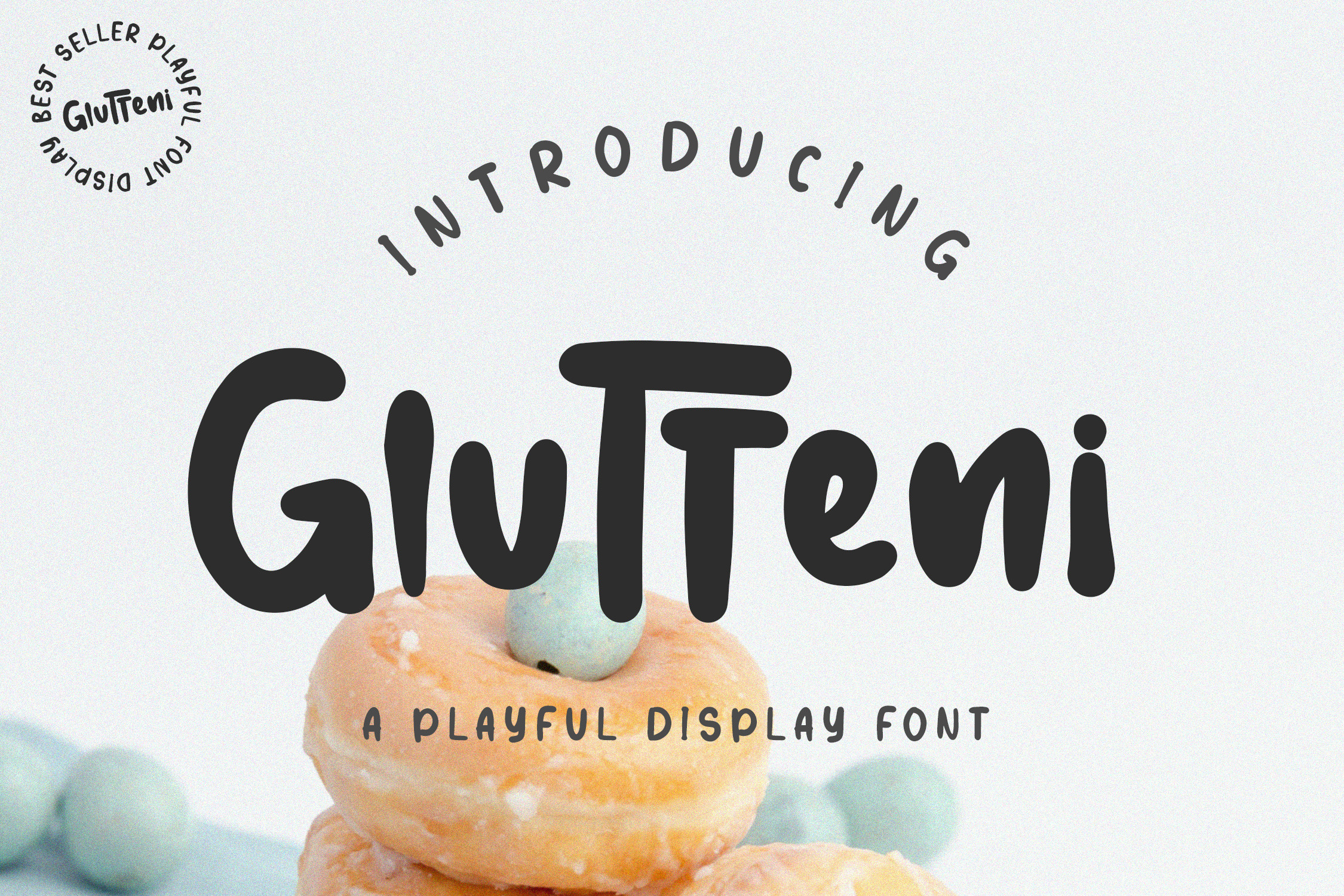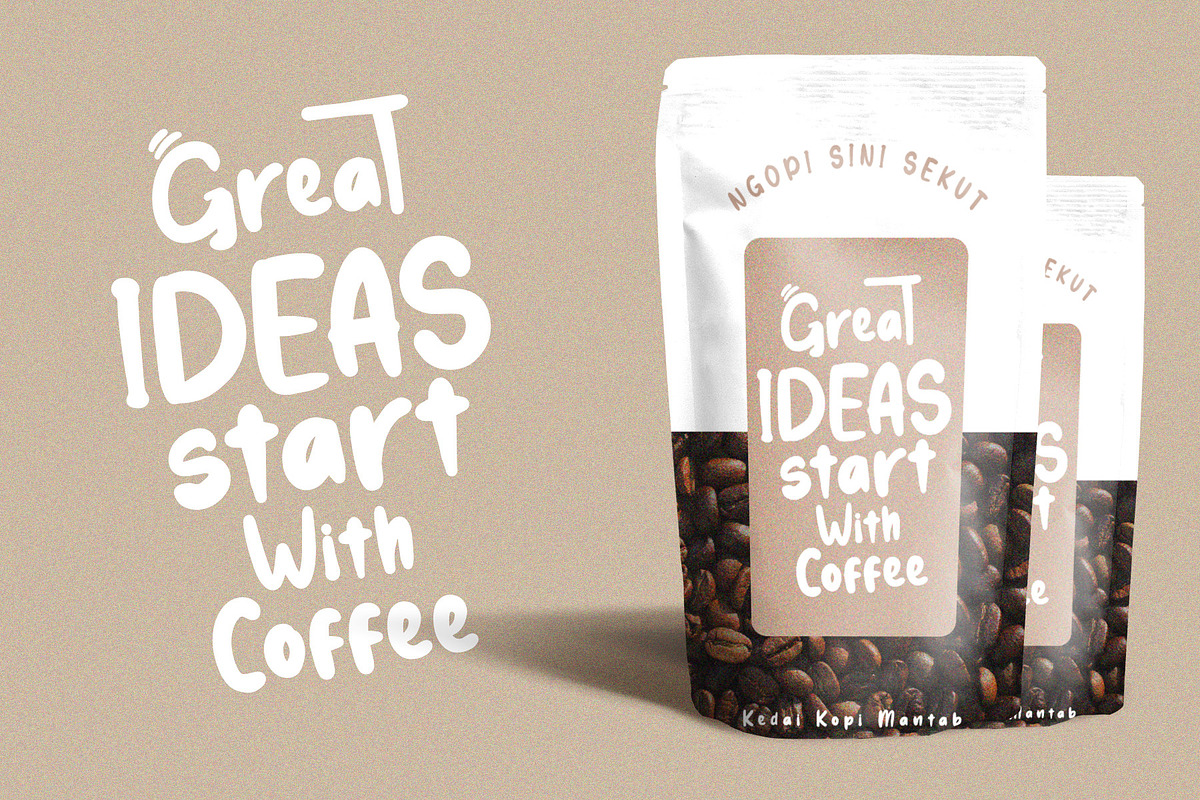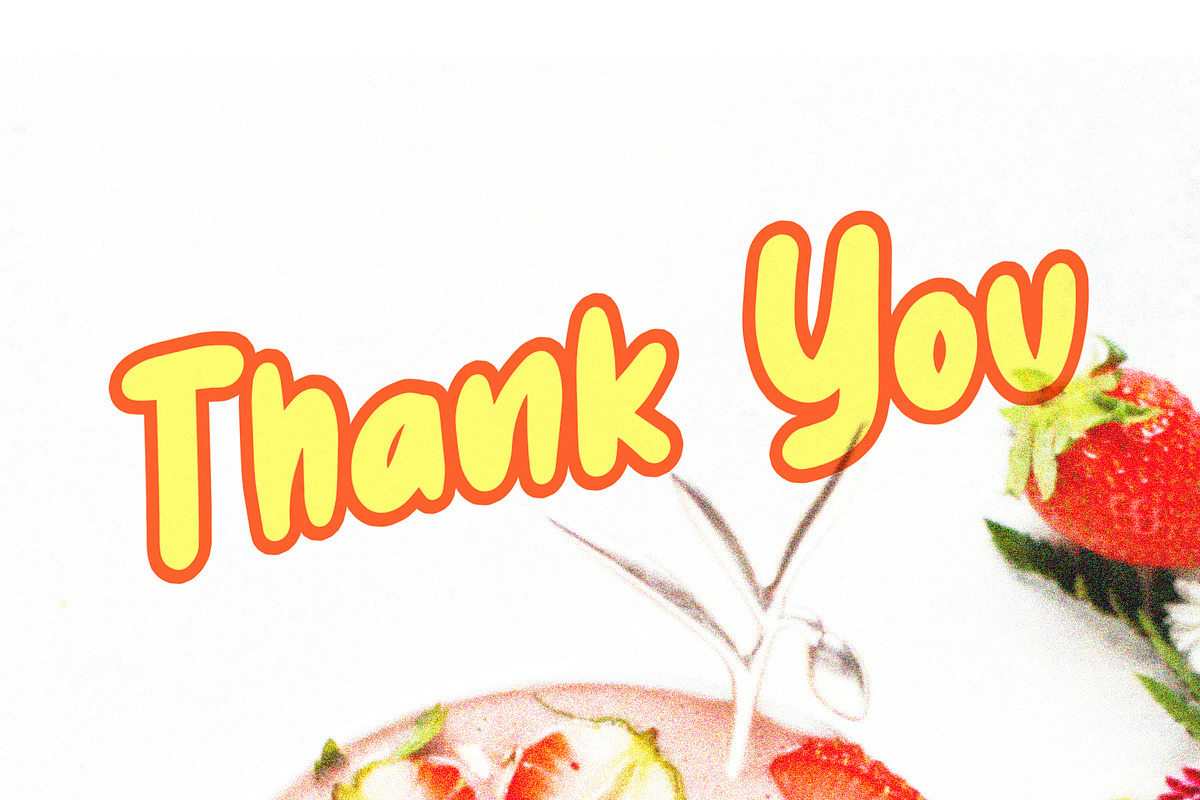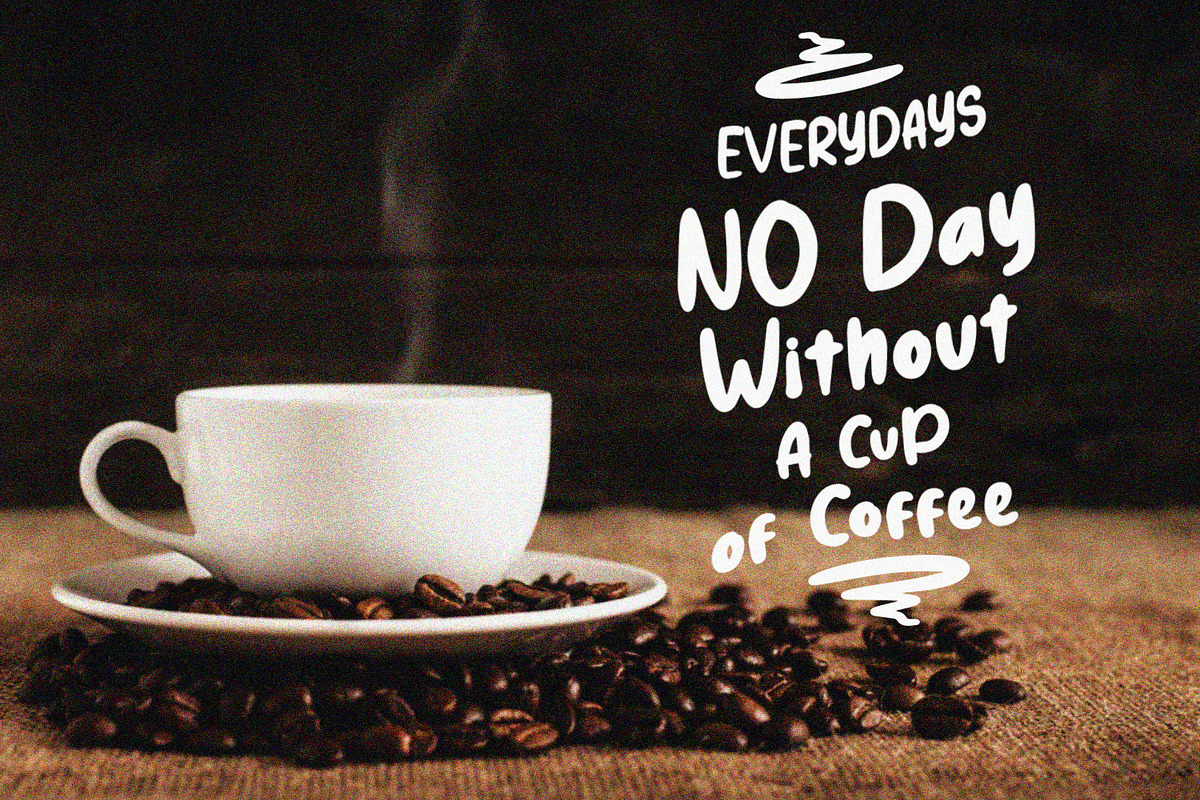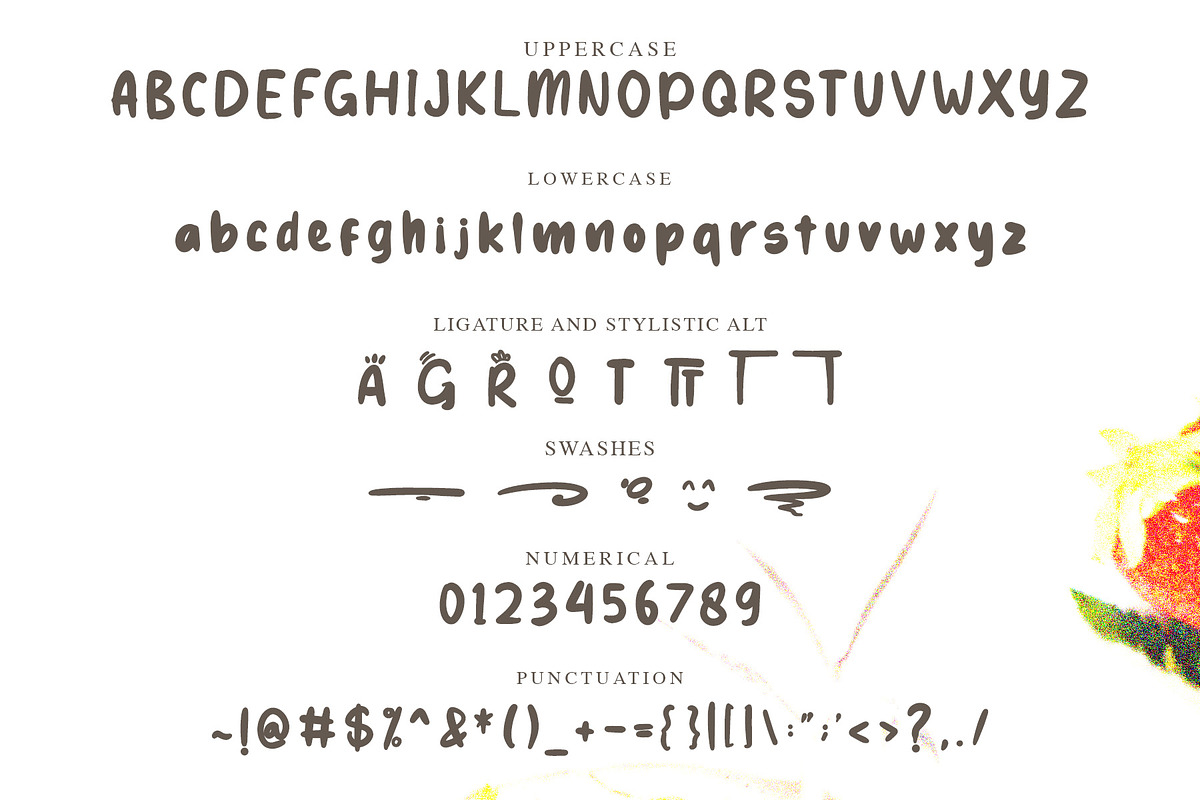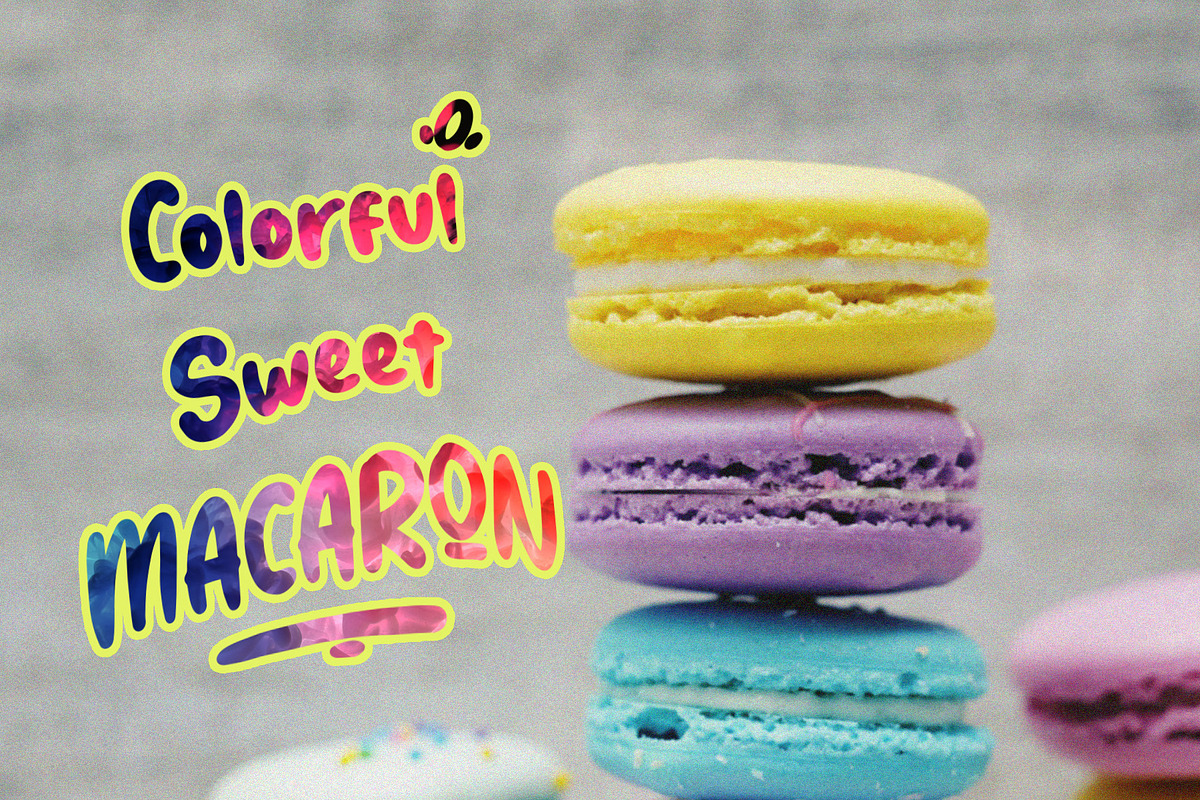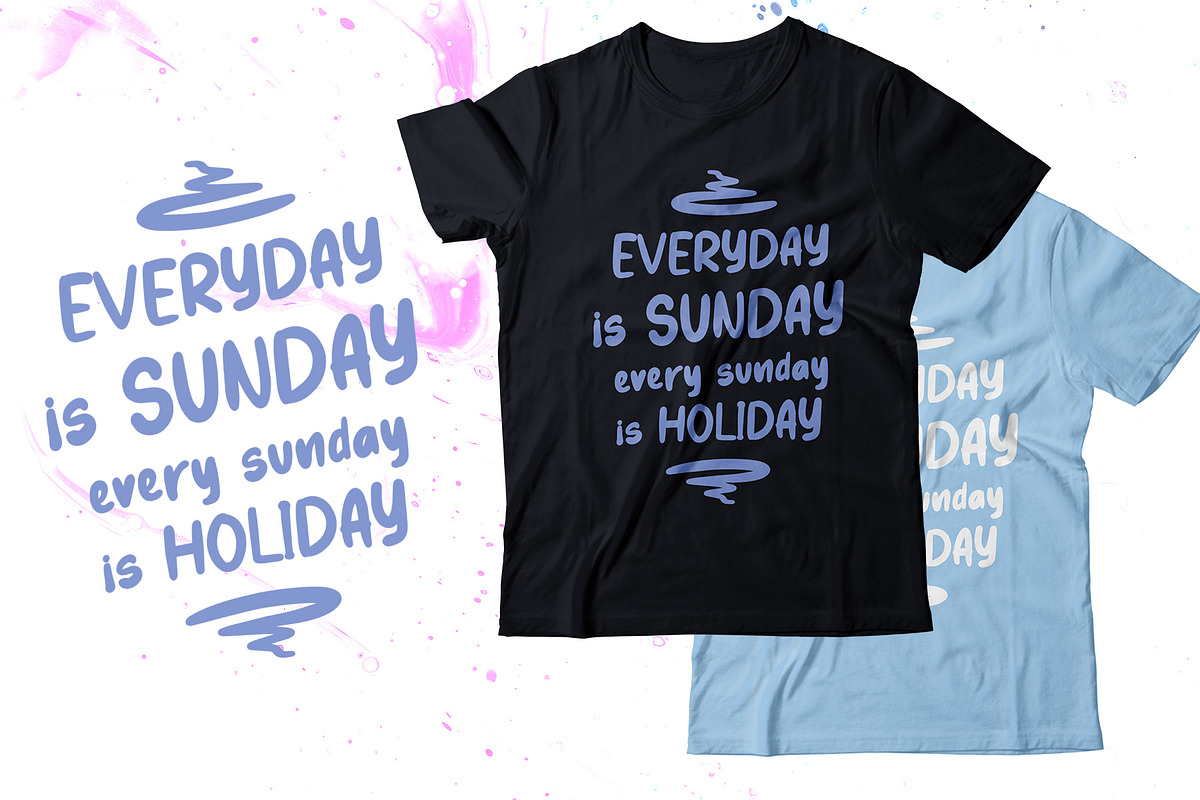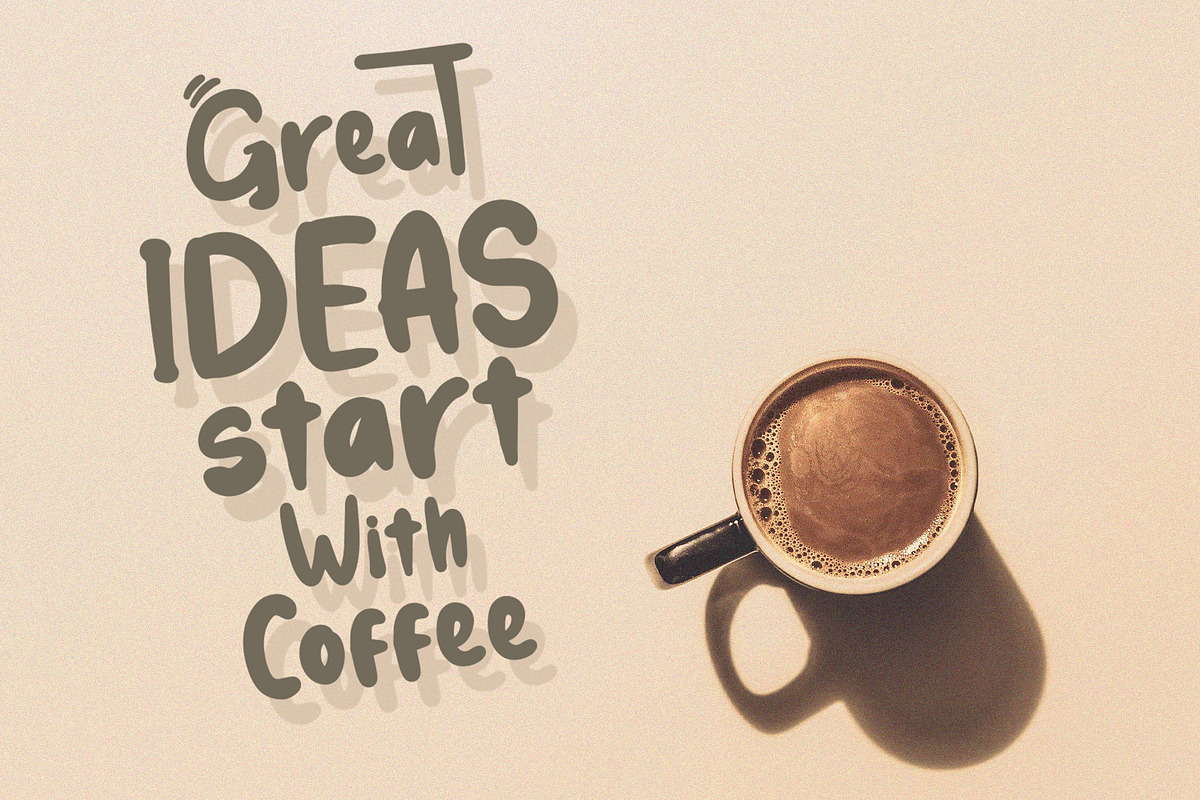
Glutteni - Playful Display Font
Glutteni is a playful display font with fun and childish style. This font is designed with a very fresh and fun theme. Can be applied to support the graphic appearance of the product to be more attractive and unique. This font is suitable for making previews and covers, Child logo designs, shirt designs and other graphic needs. Made with hand scratches directly and then processed into font processing software.
Glutteni font with uppercase characters A-Z, lowercase characters a-z, punctuation, swashes, stylistic alternate and ligature characters that enhance this font shape.
-Ligature
-Stylistic Alternate
-Swashes